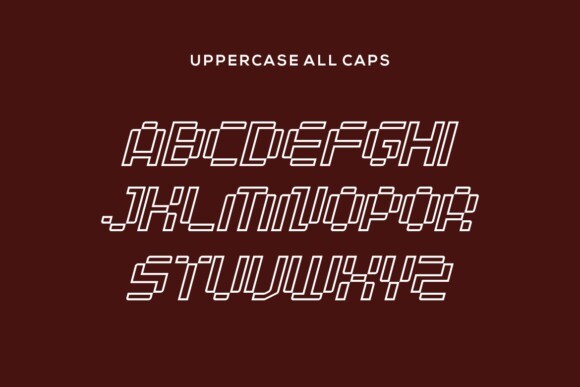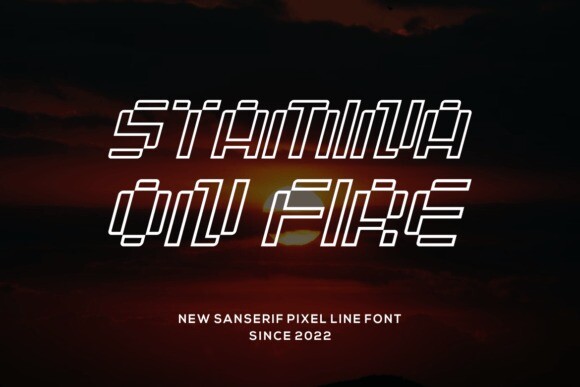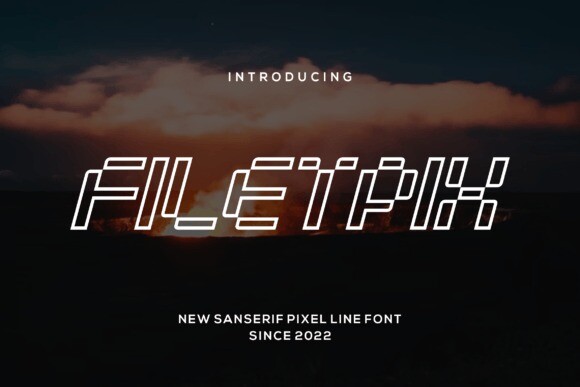
Filetpix Font
Filetpix Font is a bold and distinctive sans serif font, perfect for branding projects such as logos, sports themes, and more. It stands out across various applications.